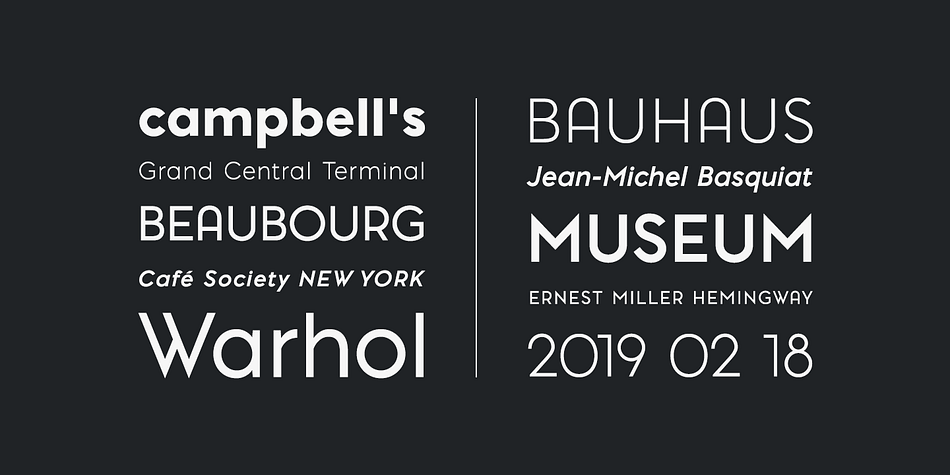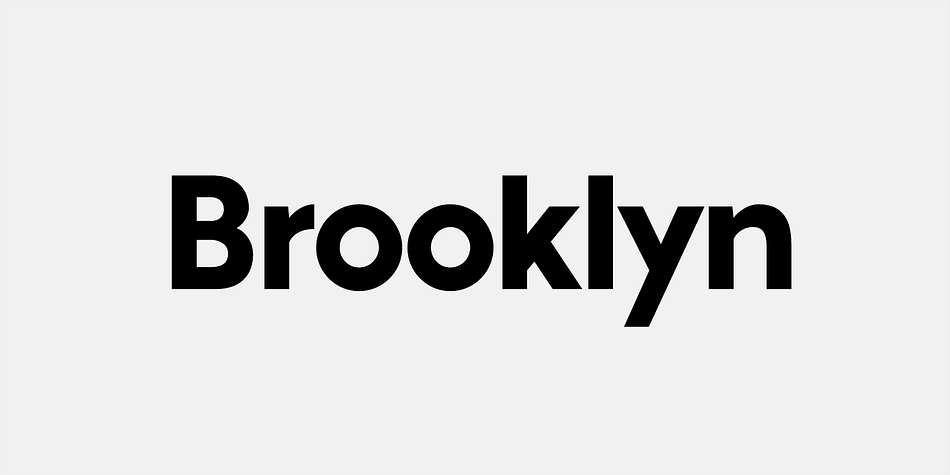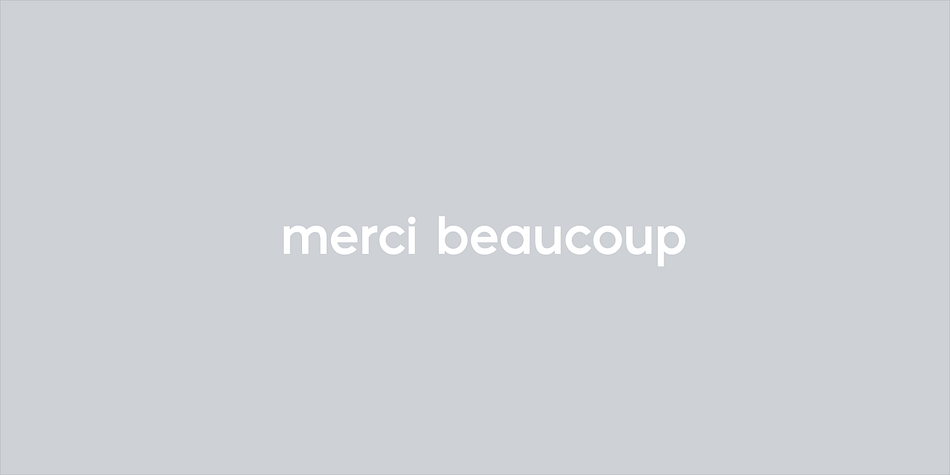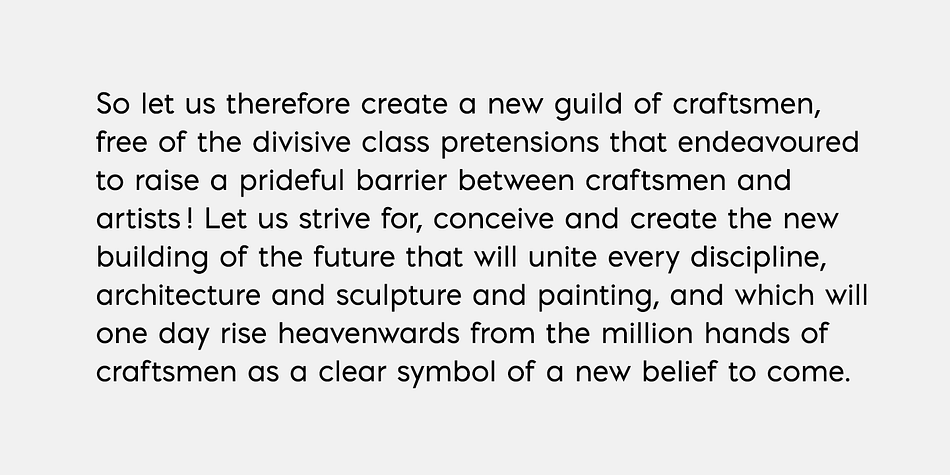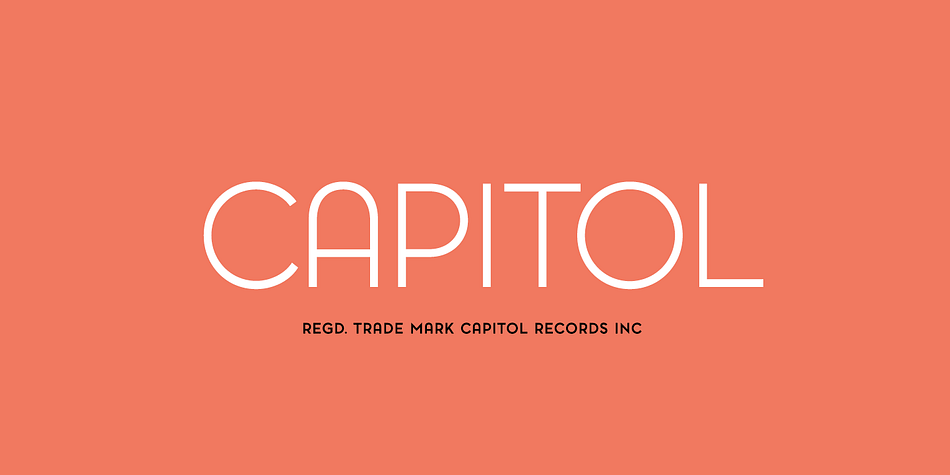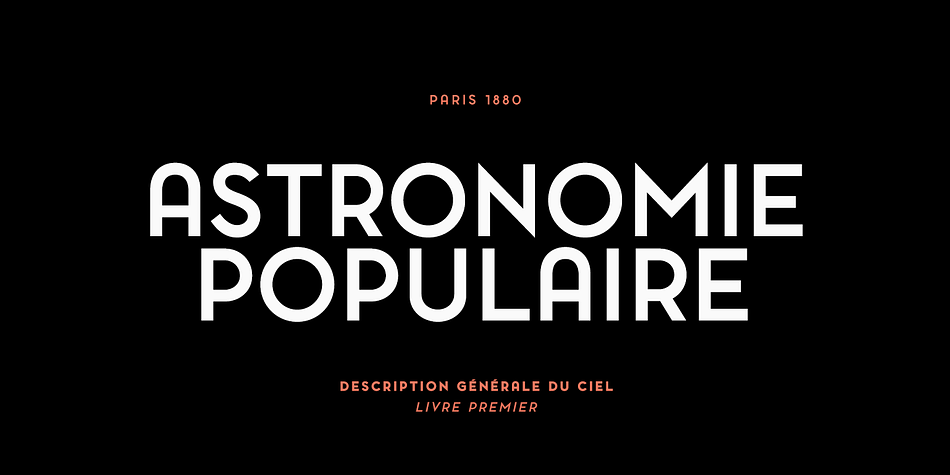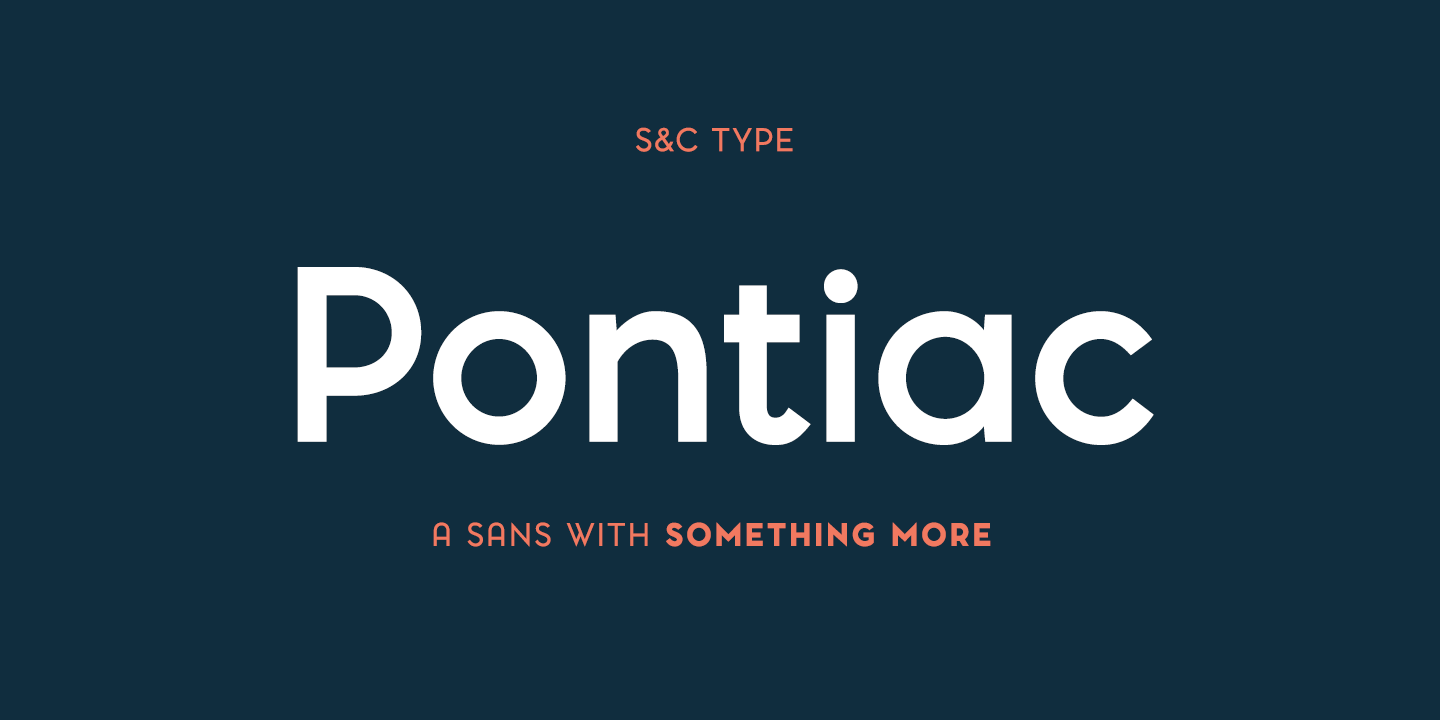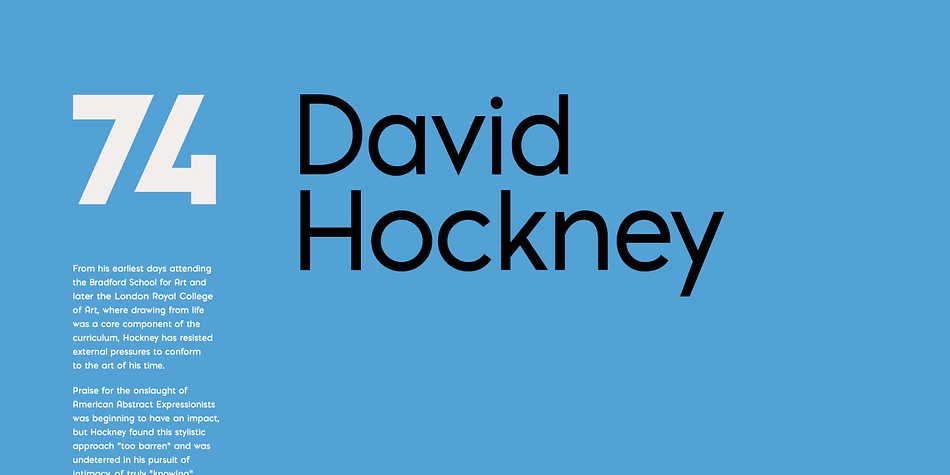
Designed by Fanny Coulez and Julien Saurin, Pontiac is a sans serif font family. This typeface has eight styles and was published by S&C Type.
Pontiac is a sans serif OpenType font designed by Fanny Coulez and Julien Saurin in Paris. Somewhere between Akzidenz Grotesk and Neutra, Pontiac is a functional font with something more, something warm, geometric but human, something distinctive, something French finally.
We also designed an inline Art Deco version of this font, Pontiac Inline. Merci beaucoup!